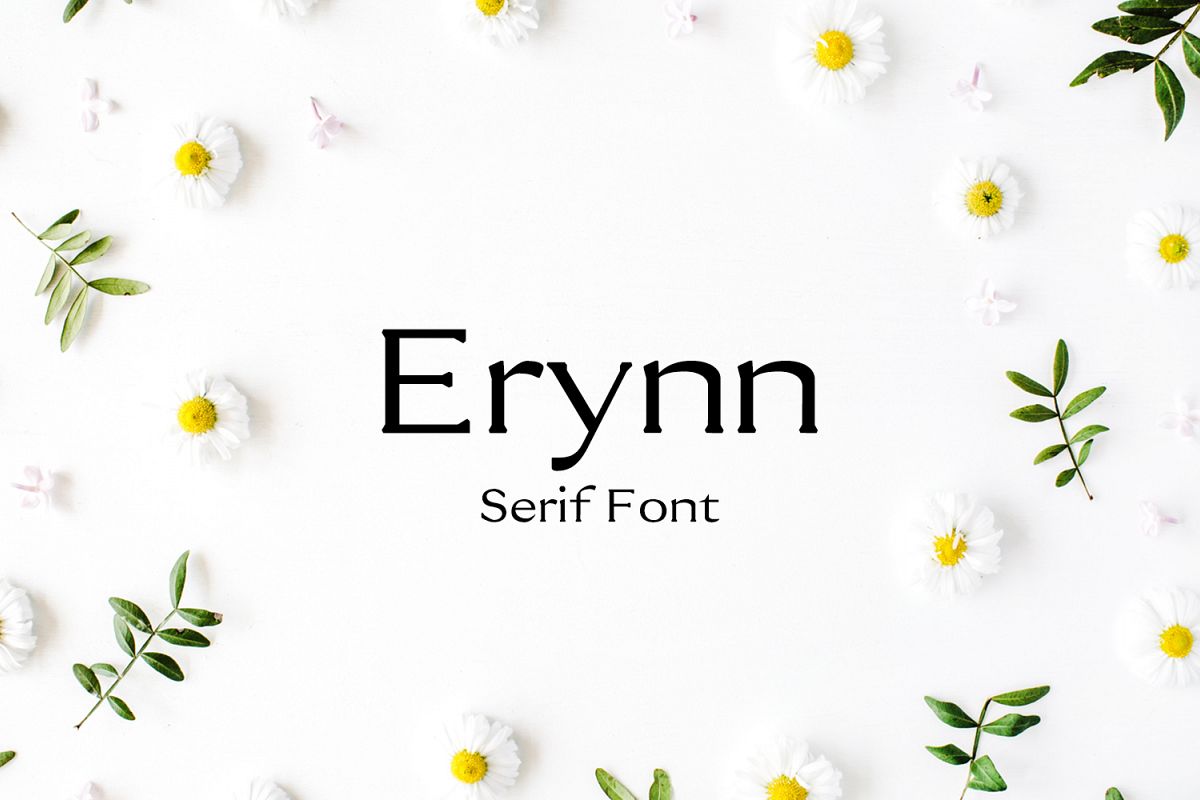
Erynn Serif Font
Erynn Serif Font is a clean minimal single font, It features unique and modern serif look and feel. Perfect for gorgeous logos, titles, web layouts and branding. It looks gorgeous in all caps with a wide-set spacing if you want to try a classy look, or beautiful on its own in capital and lowercase letters for something completely timeless.
Erynn Font Features:
• Uppercase Multilingual Letters
• Lowercase Multilingual Letters
• Alternative